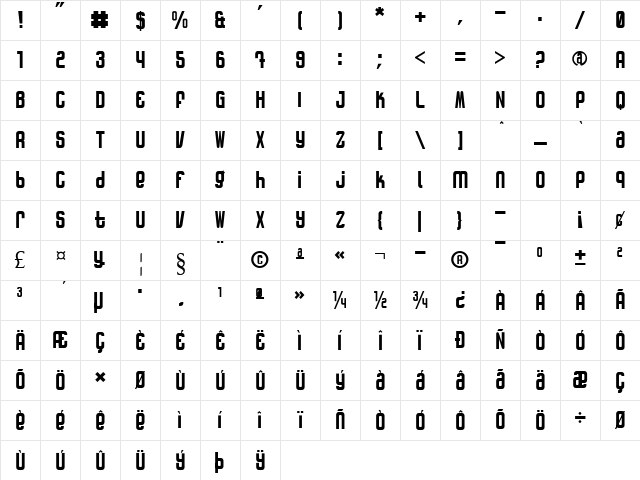
Patinio Rotulo Regular
Design Context for Patinio Rotulo
Patinio Rotulo is a composed and adaptable typeface that performs quietly and consistently across a wide range of design contexts.